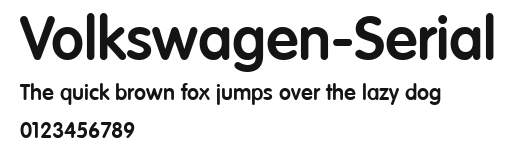
About Volkswagen-Serial.ttf
Volkswagen-Serial.ttf is a modern, elegant sans-serif font designed for ultimate readability and visual harmony. Perfect for branding, headlines, web design, and print materials.